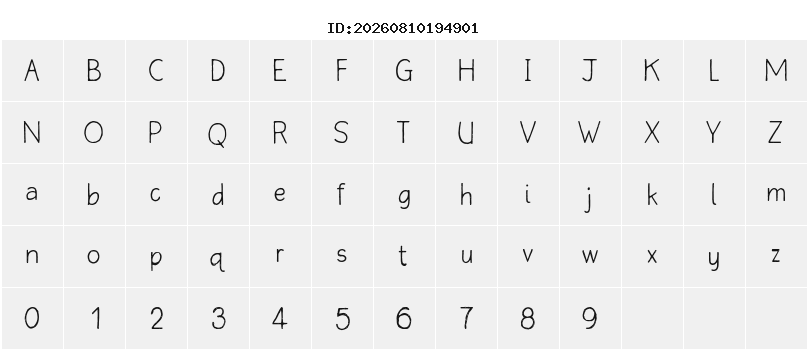
Qlinickle Preview
• Font Name: Qlinickle
• Font ID: Qlinickle:Version 1.00
• Full Font Name: Qlinickle
• Version: Version 1.00 July 12, 2014, initial release
• PostScript Name: Qlinickle
• Character Count: 203
• Designer: Joanne Taylor
About Qlinickle.otf
Qlinickle.otf is a modern, elegant sans-serif font designed for ultimate readability and visual harmony. Perfect for branding, headlines, web design, and print materials.